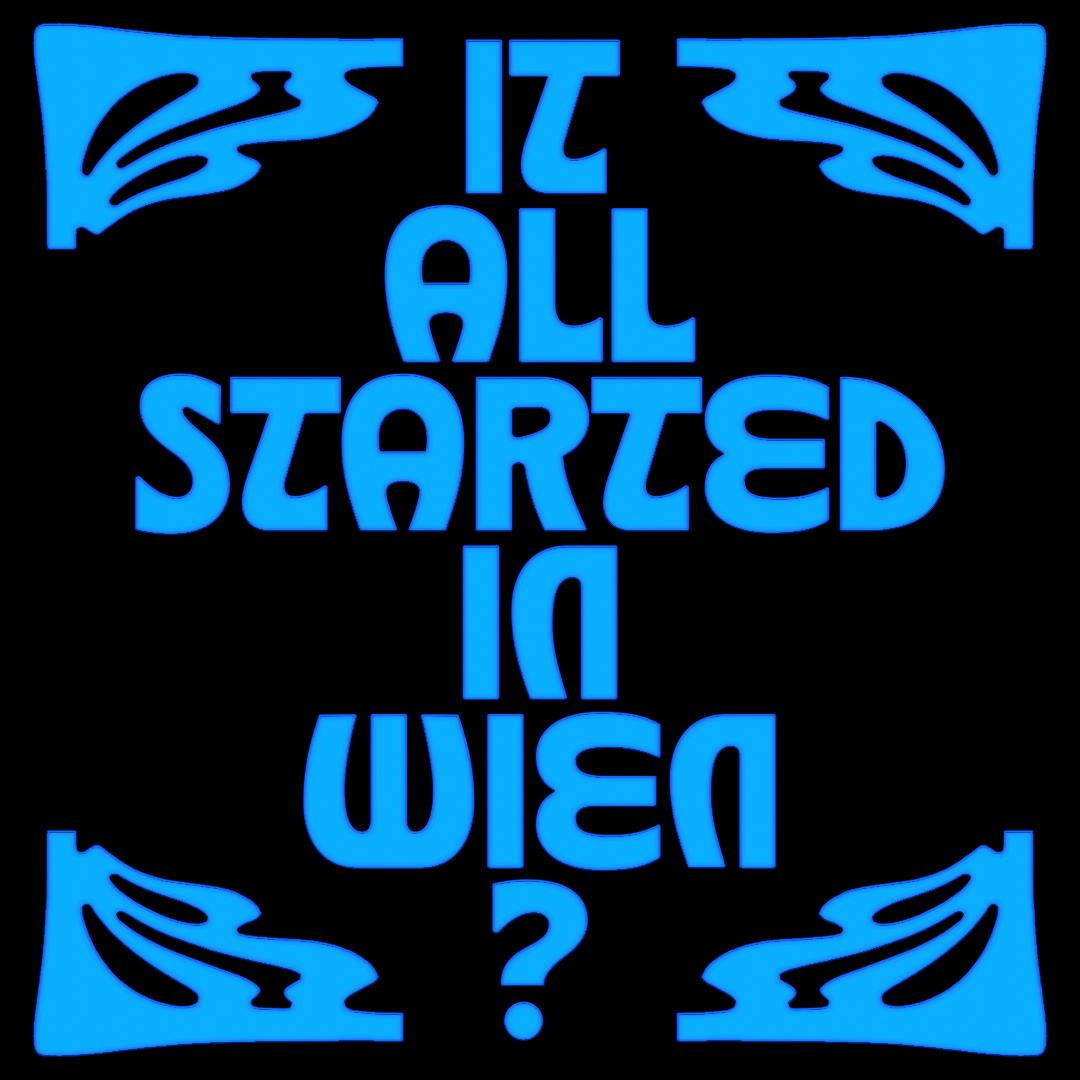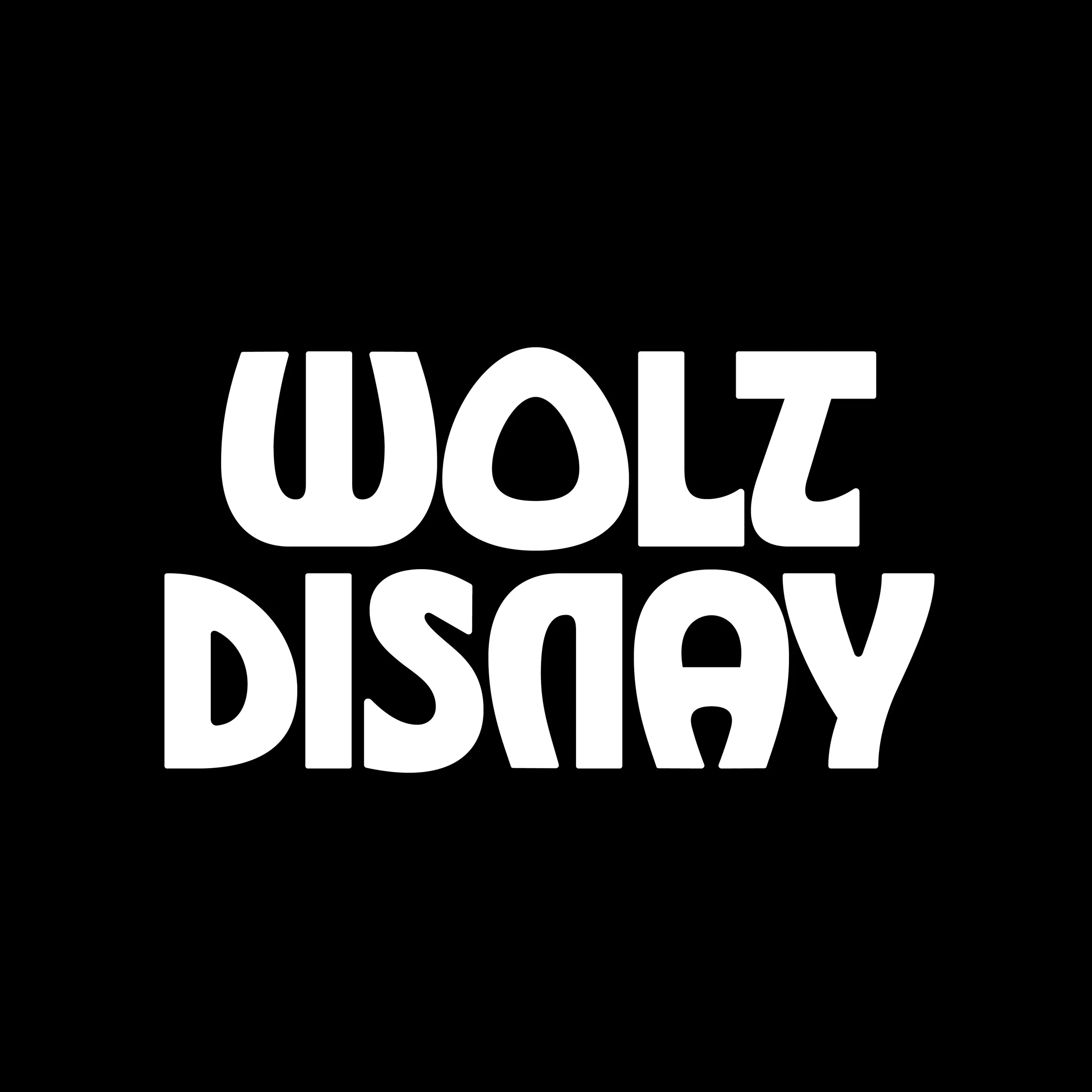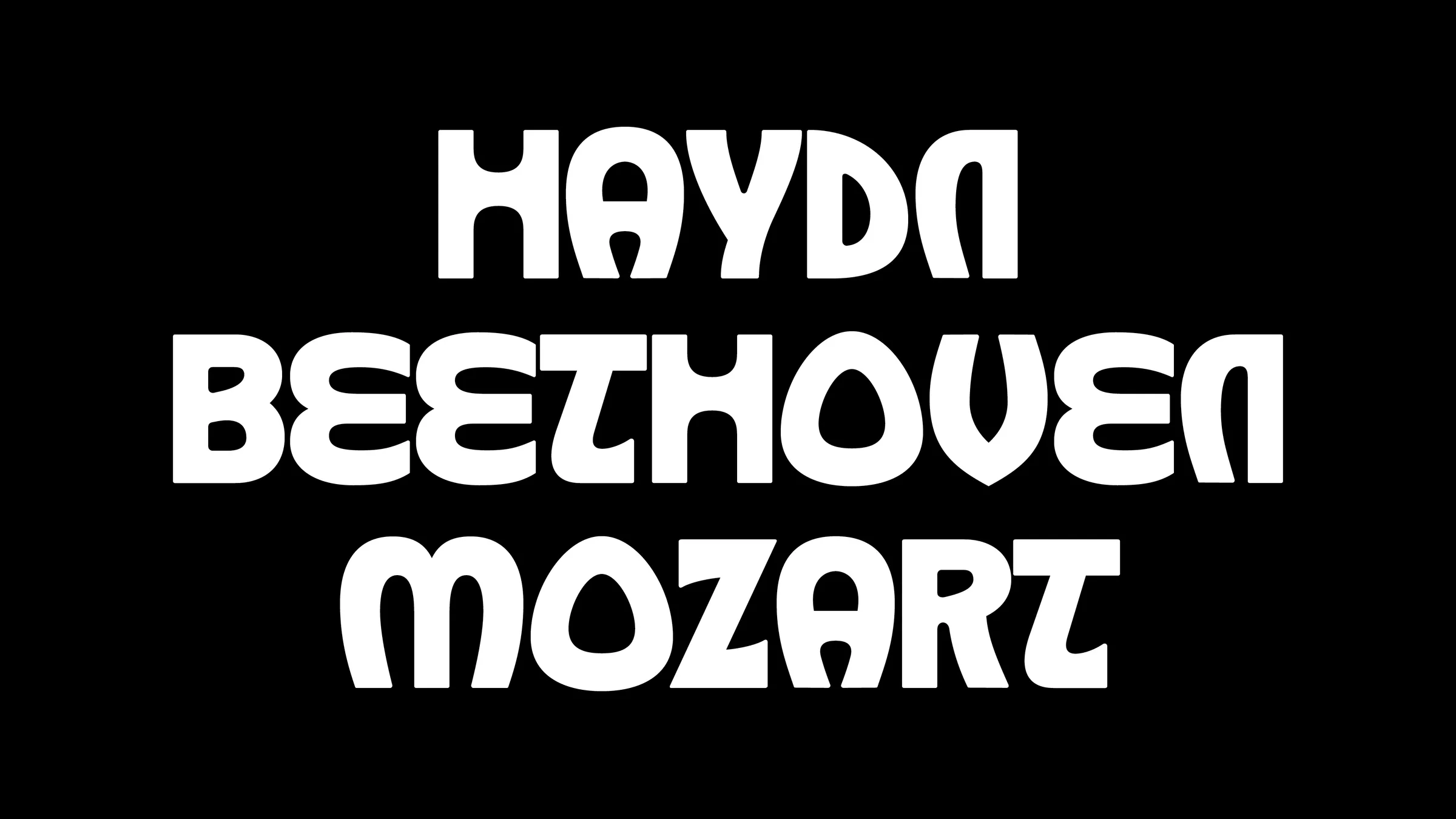
Wien is a typeface influenced by the Vienna Secession and the typographic forms that resulted from it in the early 20th century. The Vienna Secession (Sezessionstil or Wiener Secession in German) was an artistic movement that flourished in Austria, and more specifically in Vienna, between 1898 and 1910. Conventionally, the movement is associated with Art Nouveau and the Jugendstil, the vast revival of artistic forms that swept across the West at the end of the 19th century. The Vienna Secession nevertheless had its own characteristics, manifestos, exhibitions and artists, with Vienna at its centre, as well as Prague, Budapest and other cities in the Austro-Hungarian Empire. This style is characterised by organic forms, an abundance of curves, a strong relationship between text and image, and an absence of perspective and, with it, an absence of time. Secession and Jugendstil had their own typographic styles. most of the representative typefaces are defined by a calligraphic stroke and an organic, fluid appearance. The influence of Gothic typefaces is essential to the typography of this movement.At the time, these fonts were considered unreadable (by a wide audience). The magazines Insel (1899) and Die Fläche (1903 and 1910) and Ver Sacrum (1898) played an essential role in the development and understanding of this new typographic genre. These magazines showcased very free designs, representative of the secessionist identity, offering completely new perspectives for the time in terms of type design, which Behrens, Leitcheront, Oswald, Roller and Moser for example highlighted in their creations of this period.